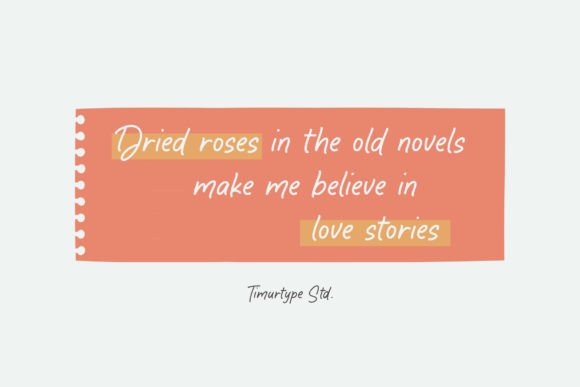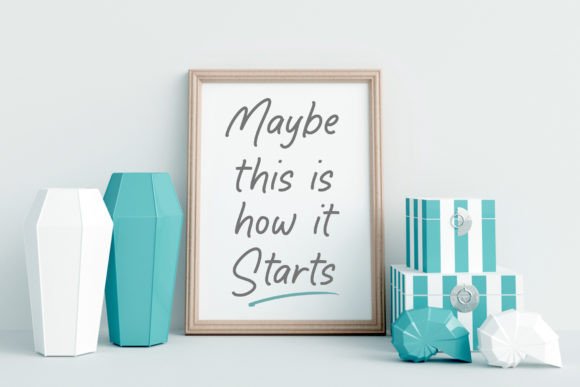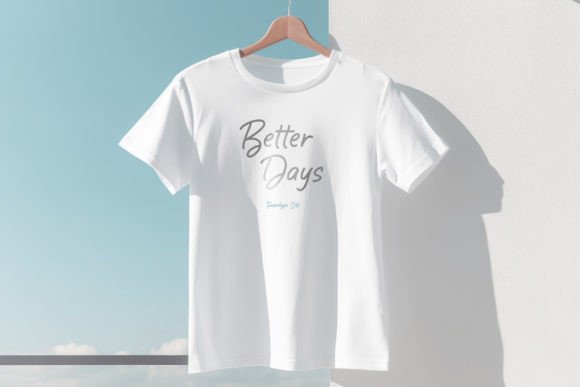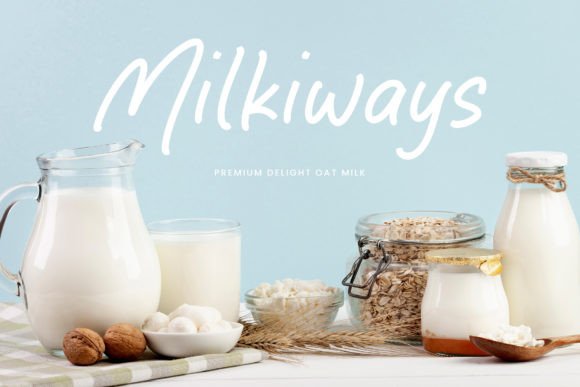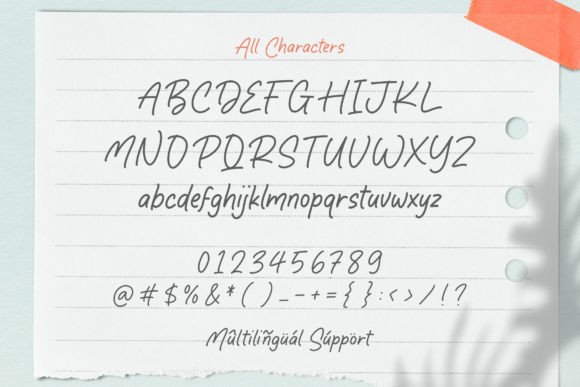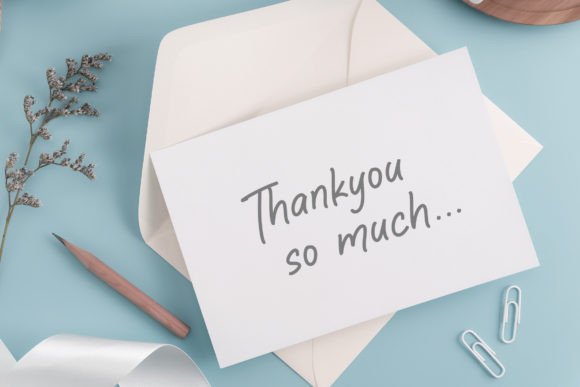
Introducing Dreamy Wallabies Font: A Whimsical Handwritten Font by Timurtype Studio!
Are you tired of using the same old fonts for your design projects? Look no further! Timurtype Studio is excited to introduce the Dreamy Wallabies font, a fun and quirky handwritten font that’s sure to bring a sense of joy and creativity to your designs. In this article, we’ll take a closer look at the features and benefits of the Dreamy Wallabies font, and explore how you can use it to elevate your design projects.
A Fun and Playful Font for Your Designs
The Dreamy Wallabies font is a whimsical and playful choice for any design project. Its quirky and energetic letterforms are sure to capture the attention of your audience and add a touch of personality to your text. The hand-drawn style and uneven lines give the font a charming and imperfect look, adding character to your designs and making them stand out from the crowd.
Whether you’re creating inspirational quotes, posters, or social media graphics, the Dreamy Wallabies font is the perfect choice. Its fun and lighthearted vibe makes it ideal for designs that are meant to uplift and inspire. With this font, you can add a touch of whimsy and creativity to your designs and make them more engaging and memorable.
Key Features of the Dreamy Wallabies Font
The Dreamy Wallabies font comes with a range of features that make it a versatile and practical choice for designers. Here are some of the key features:
- Multilingual support: The Dreamy Wallabies font supports multilingualism, making it a great choice for designers who work with clients from different cultures and languages.
- Hand-drawn style: The font’s hand-drawn style and uneven lines give it a charming and imperfect look, adding character to your designs.
How to Use the Dreamy Wallabies Font
The Dreamy Wallabies font is easy to use and can be incorporated into a range of design projects. Here are some ideas to get you started:
- Inspirational quotes: Use the Dreamy Wallabies font to create inspirational quotes that are meant to uplift and inspire. The font’s fun and playful vibe makes it perfect for quotes that are meant to motivate and encourage.
- Posters: Create eye-catching posters with the Dreamy Wallabies font. The font’s quirky and energetic letterforms make it perfect for posters that are meant to grab attention and stand out.
- Social media graphics: Use the Dreamy Wallabies font to create social media graphics that are meant to engage and inspire. The font’s hand-drawn style and uneven lines give it a charming and imperfect look that’s perfect for social media.
The Dreamy Wallabies font is a fun and quirky handwritten font that’s perfect for designers who want to add a touch of whimsy and creativity to their designs. With its hand-drawn style and uneven lines, this font brings a sense of joy and character to any text. Whether you’re creating inspirational quotes, posters, or social media graphics, the Dreamy Wallabies font is a great choice.